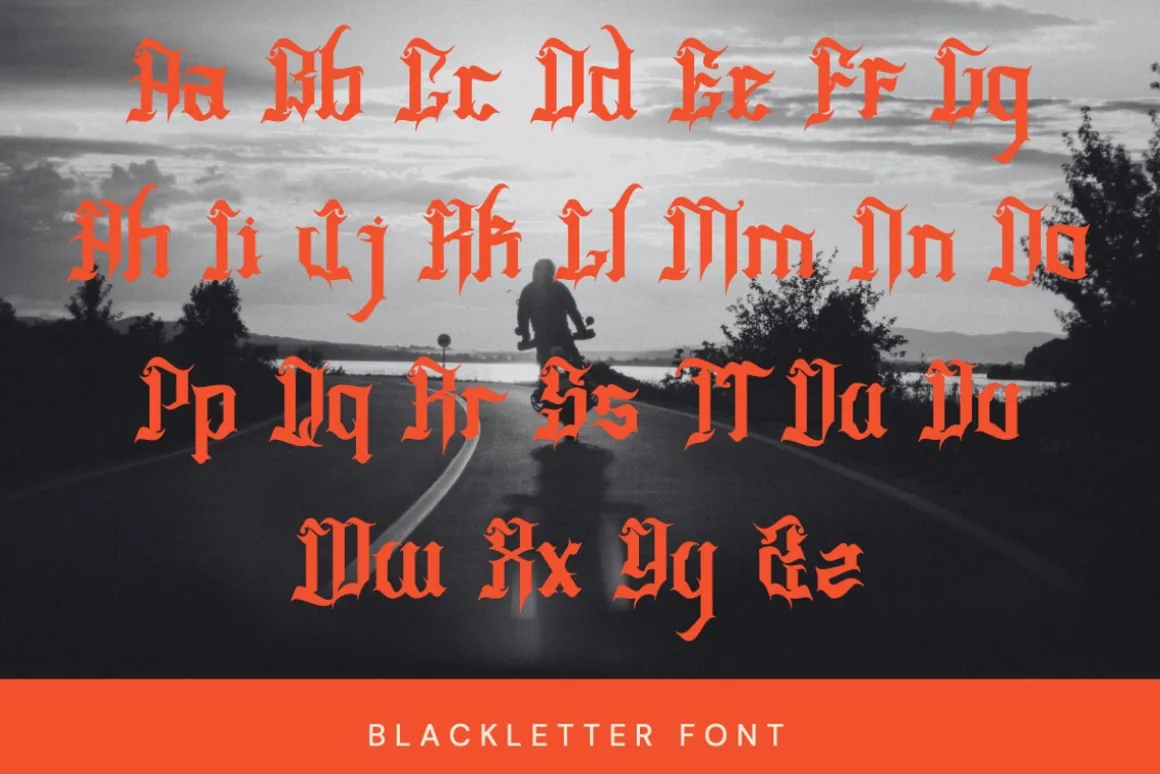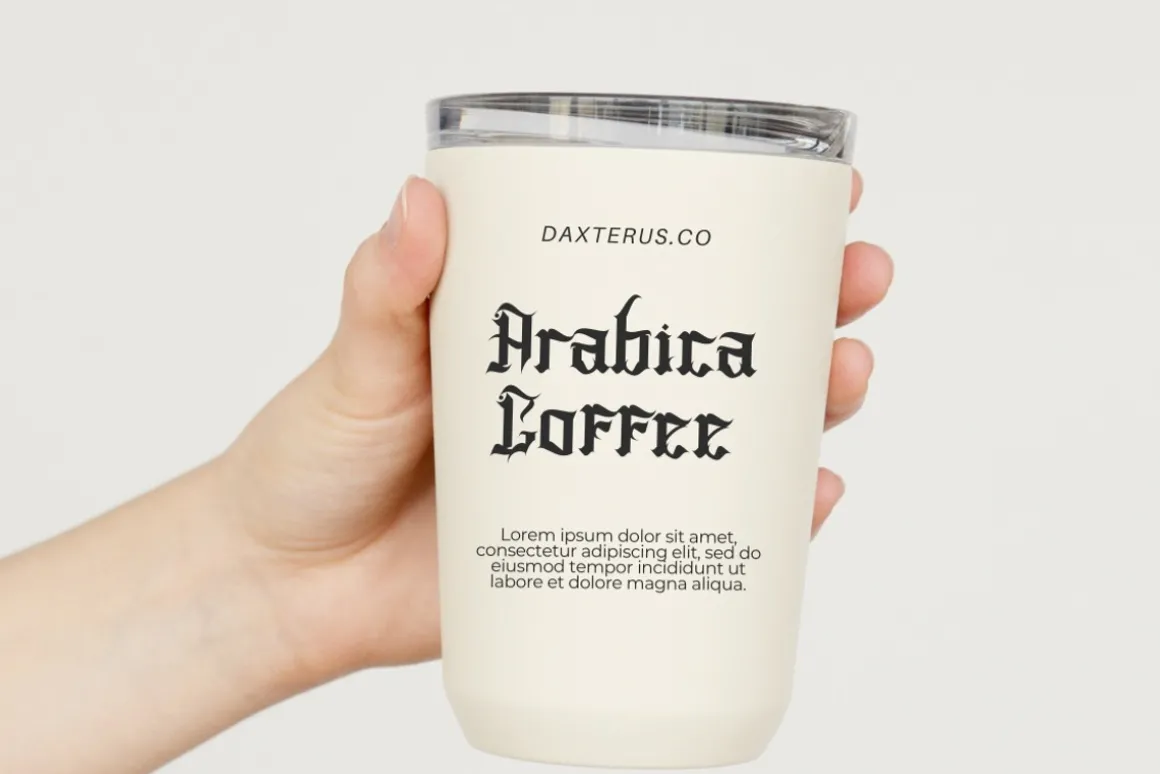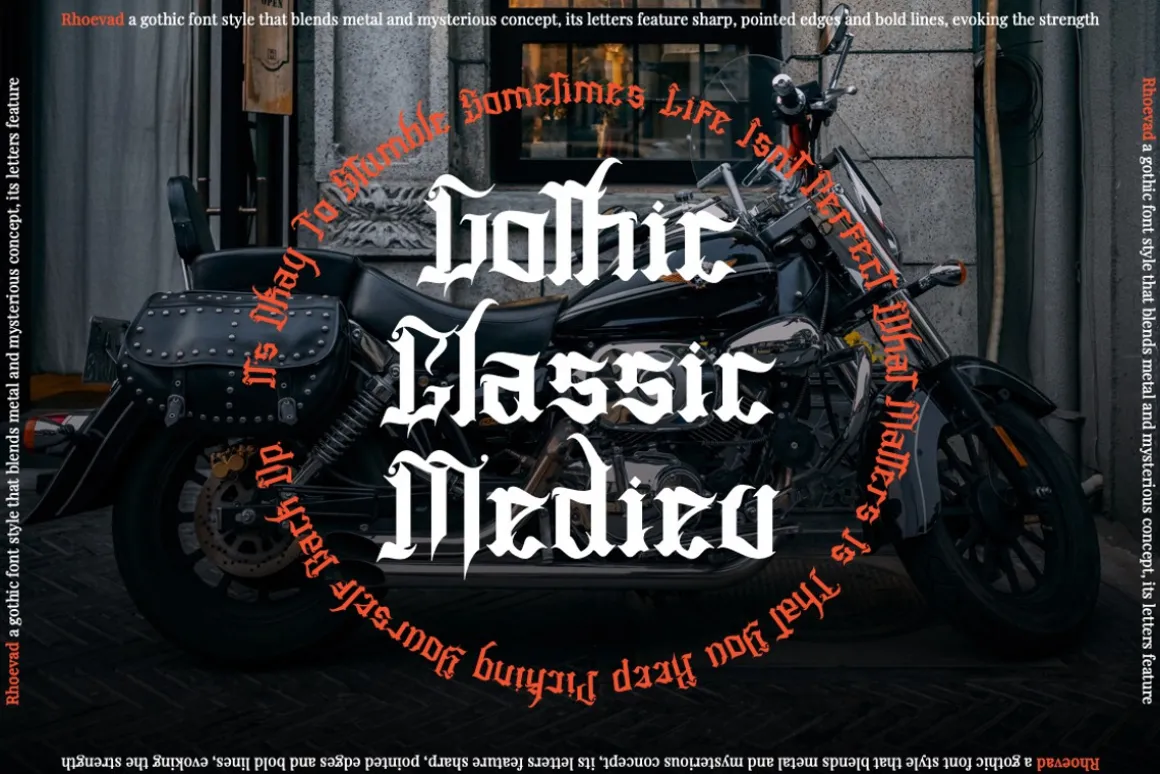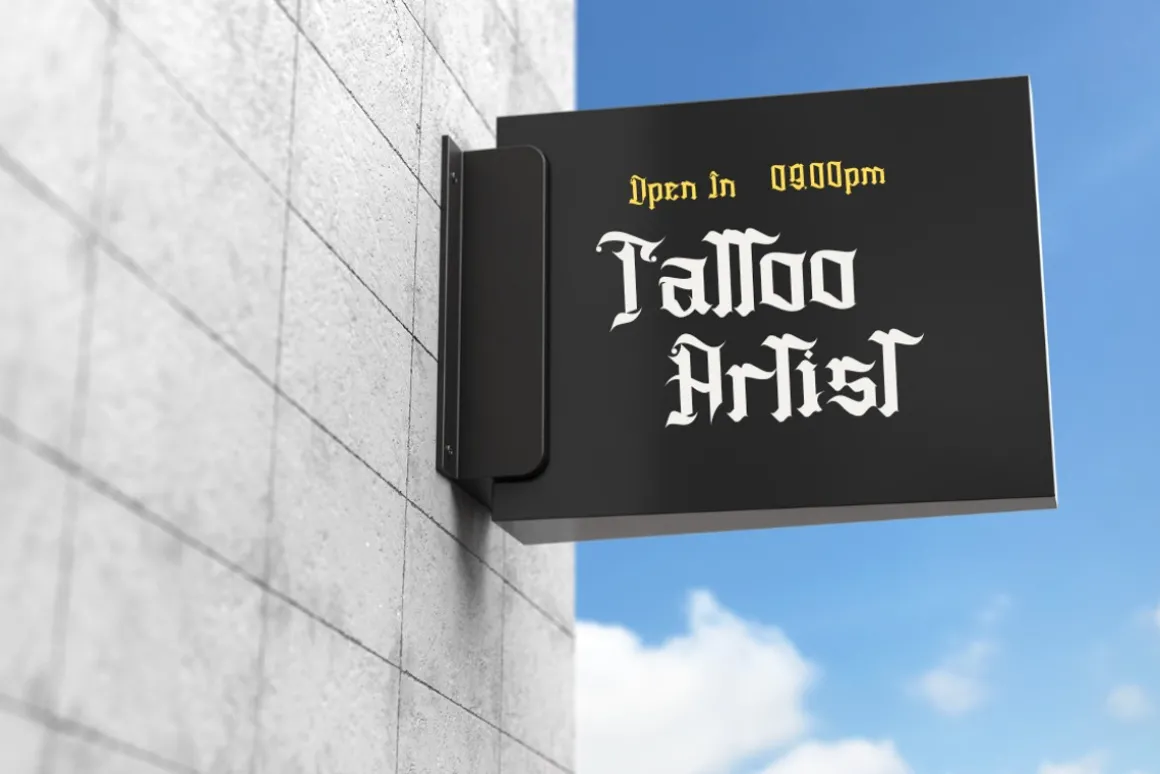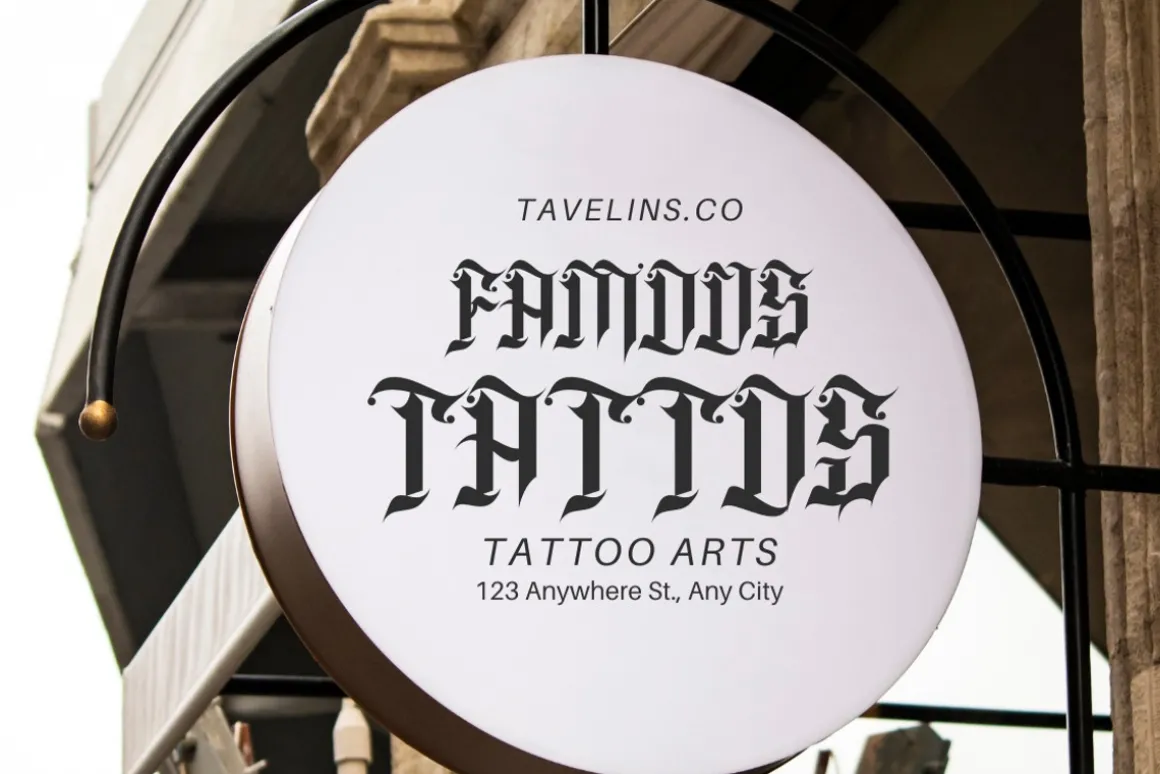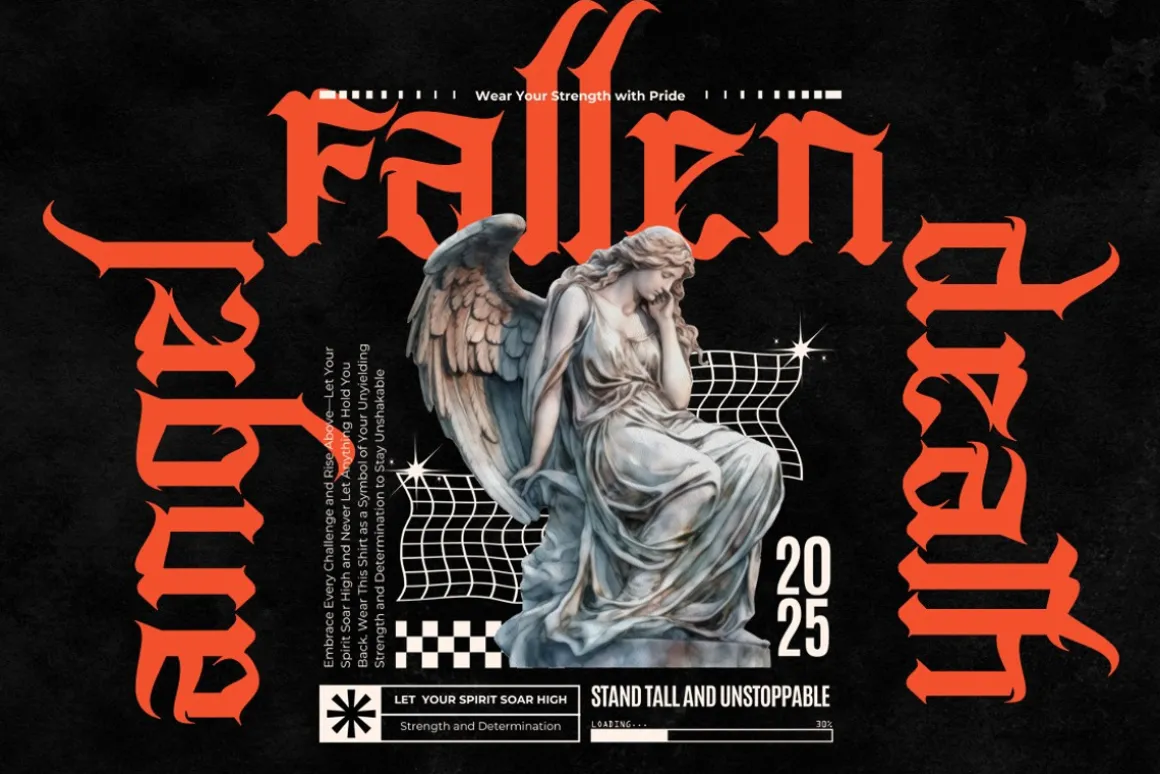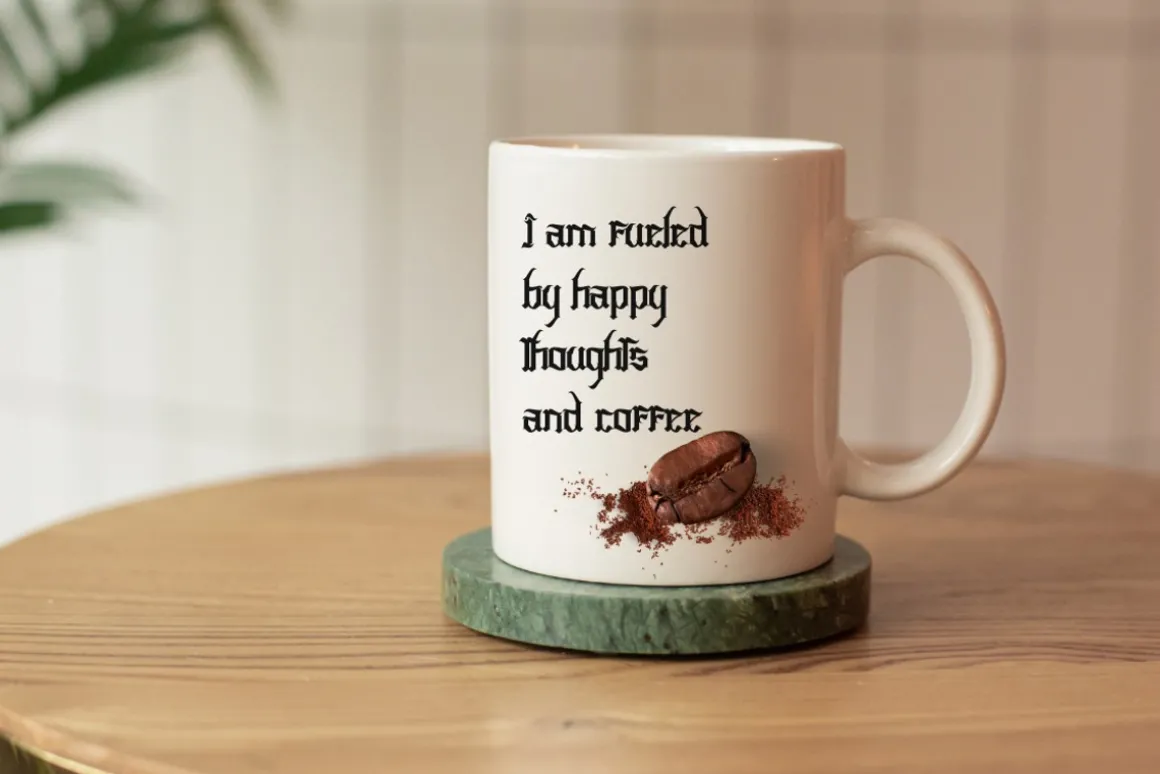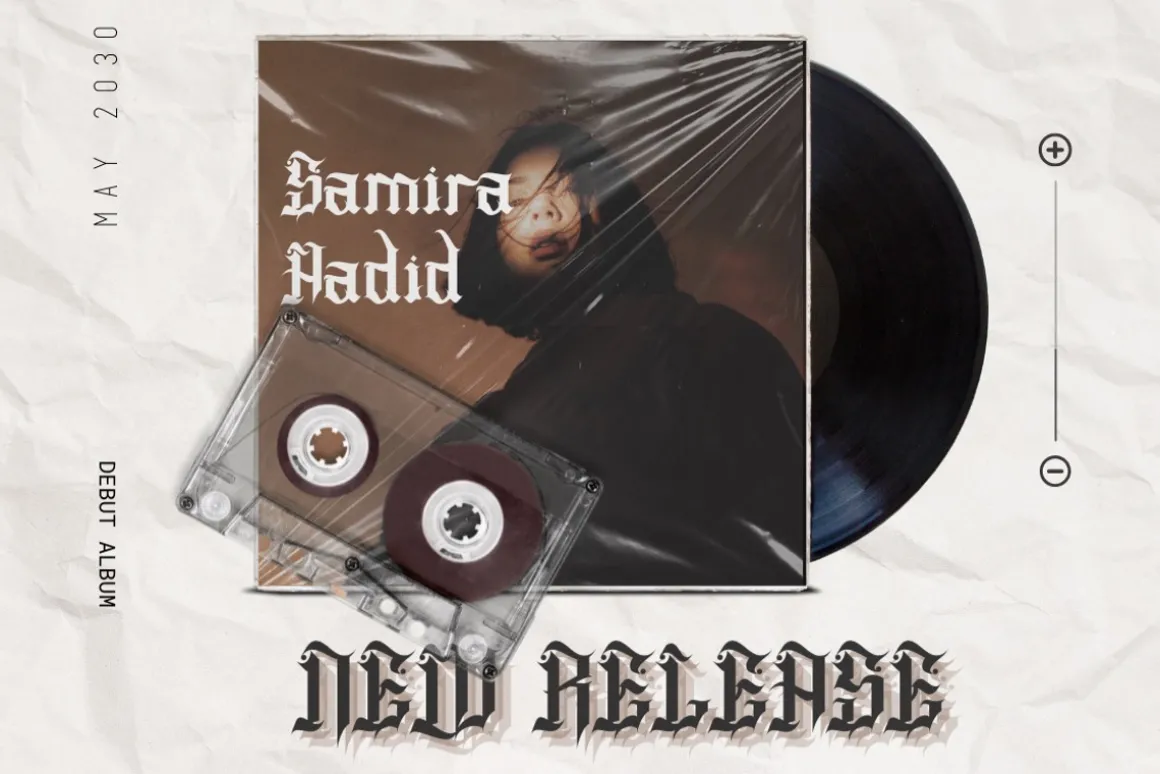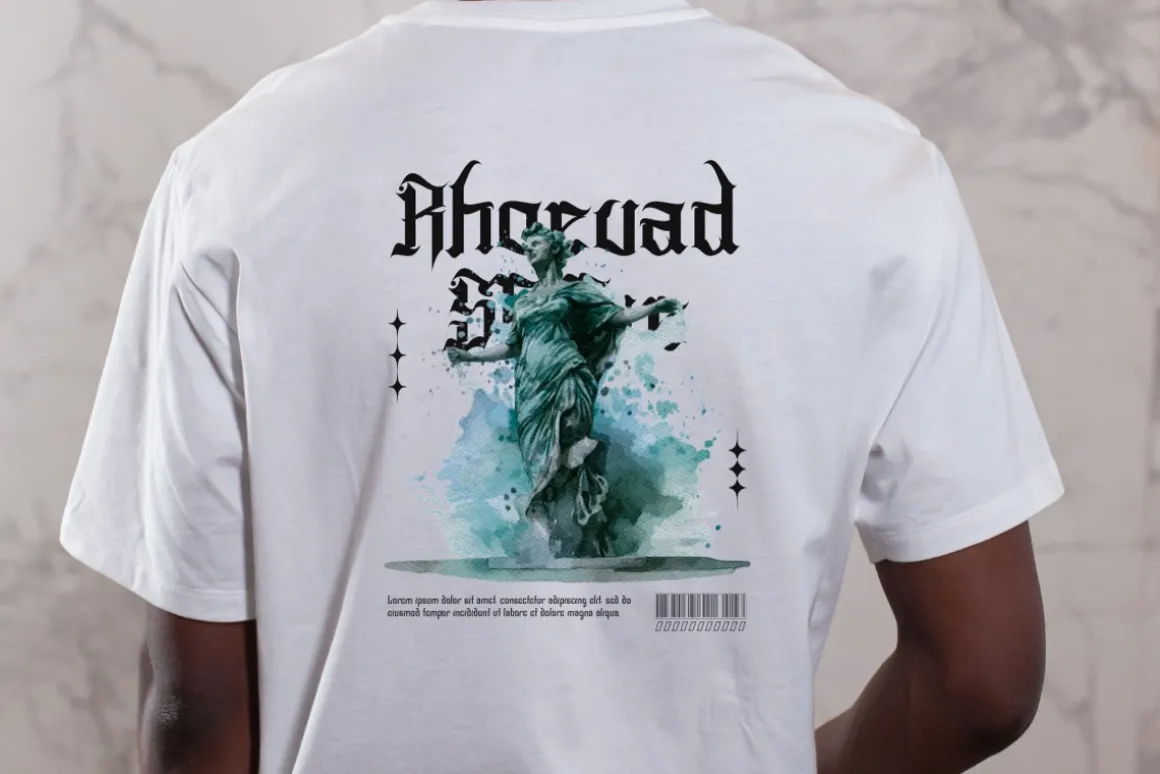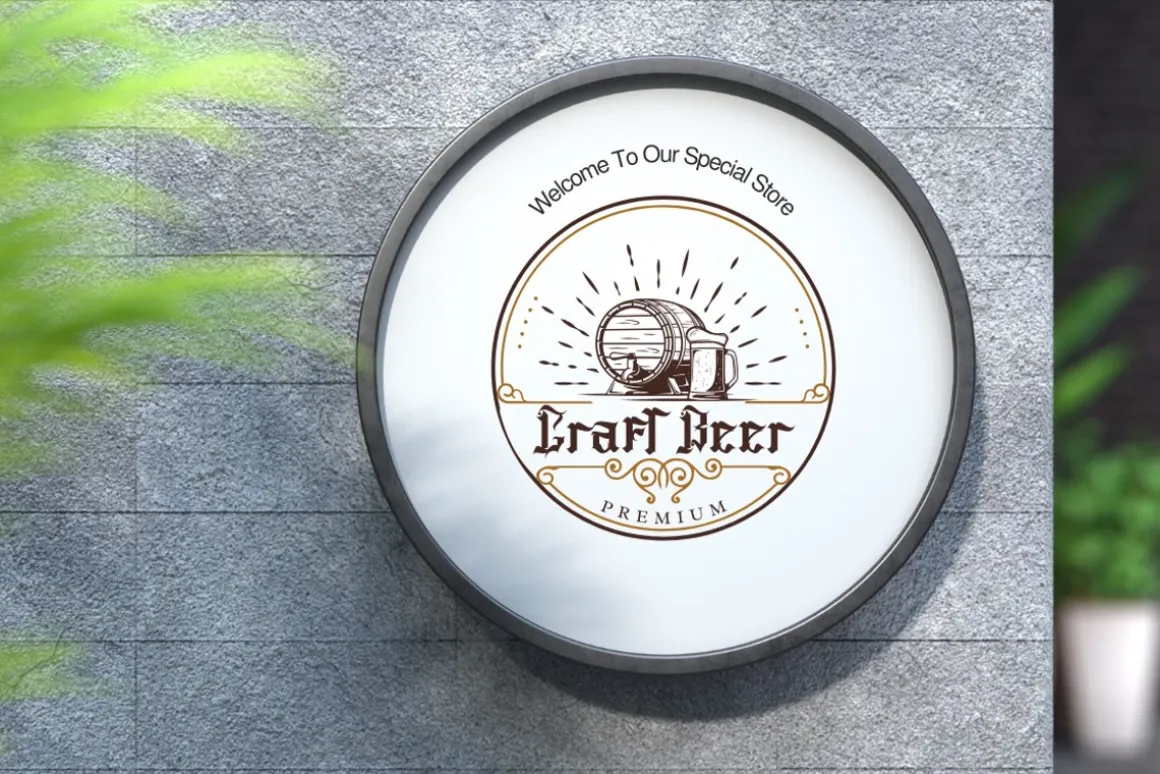
Introducing Rhoevad – Modern Blackletter Font
Rhoevad – Modern Blackletter Font is a bold blackletter fraktur display font that merges traditional Gothic aesthetics with modern impact. Its intricate letterforms feature sharp angles, dramatic strokes, and striking contrasts, embodying strength, authority, and historical charm. The bold weight enhances its commanding presence, making it ideal for designs that demand attention and sophistication.